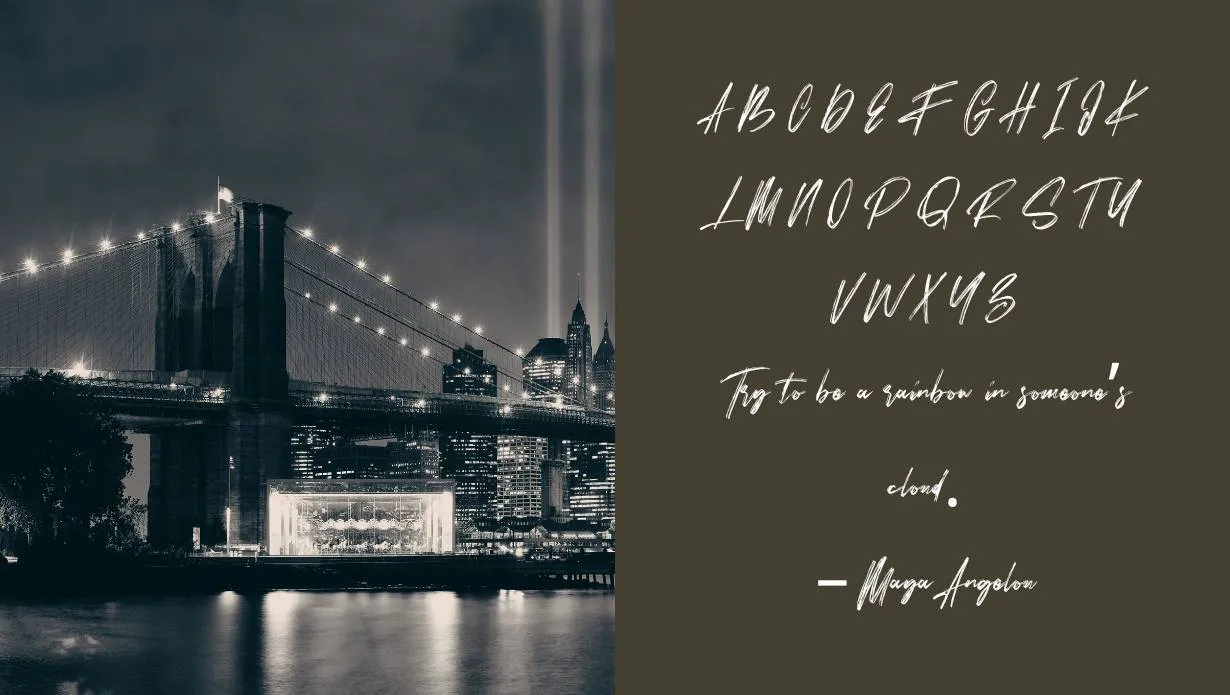
Bestro Font is a brush typeface designed by Swiss designer Max Miedinger in 1957. The font is named after the Bestro company, which was founded by Miedinger and Eduard Hoffmann in 1952.
The company’s logo was created using the Bestro Font.
The typeface family can also work well with new wishes modern font and you will not find any difference between these two typefaces while pairing and applying them in a design.